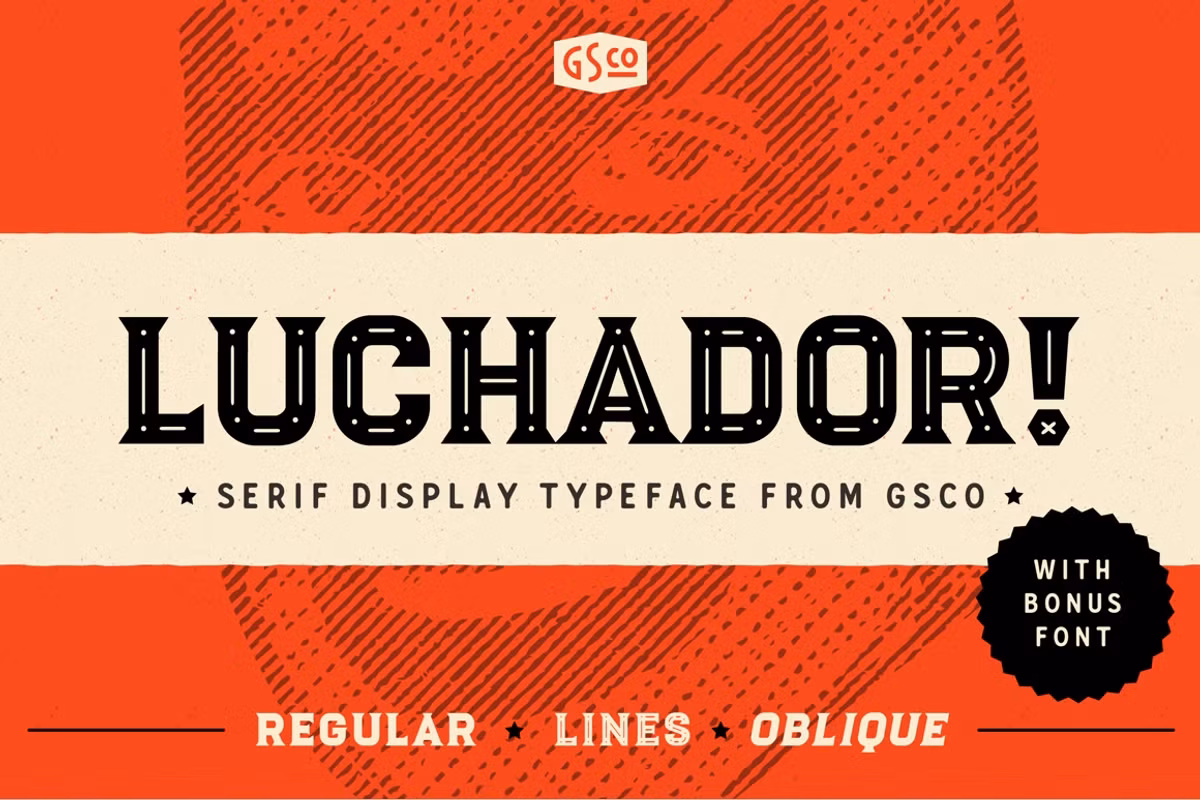
The Luchador - Serif Display Typeface Free Download is a bold and dynamic font designed to make a statement. Perfect for posters, logos, branding, editorial design, and any project that needs a strong visual impact, this typeface combines the classic elegance of serifs with a modern, robust structure.
With its sharp edges, unique letterforms, and commanding presence, Luchador is ideal for high-impact headlines and large-scale text. It includes uppercase and lowercase letters, numbers, punctuation, and multilingual support, ensuring versatility across both print and digital projects.